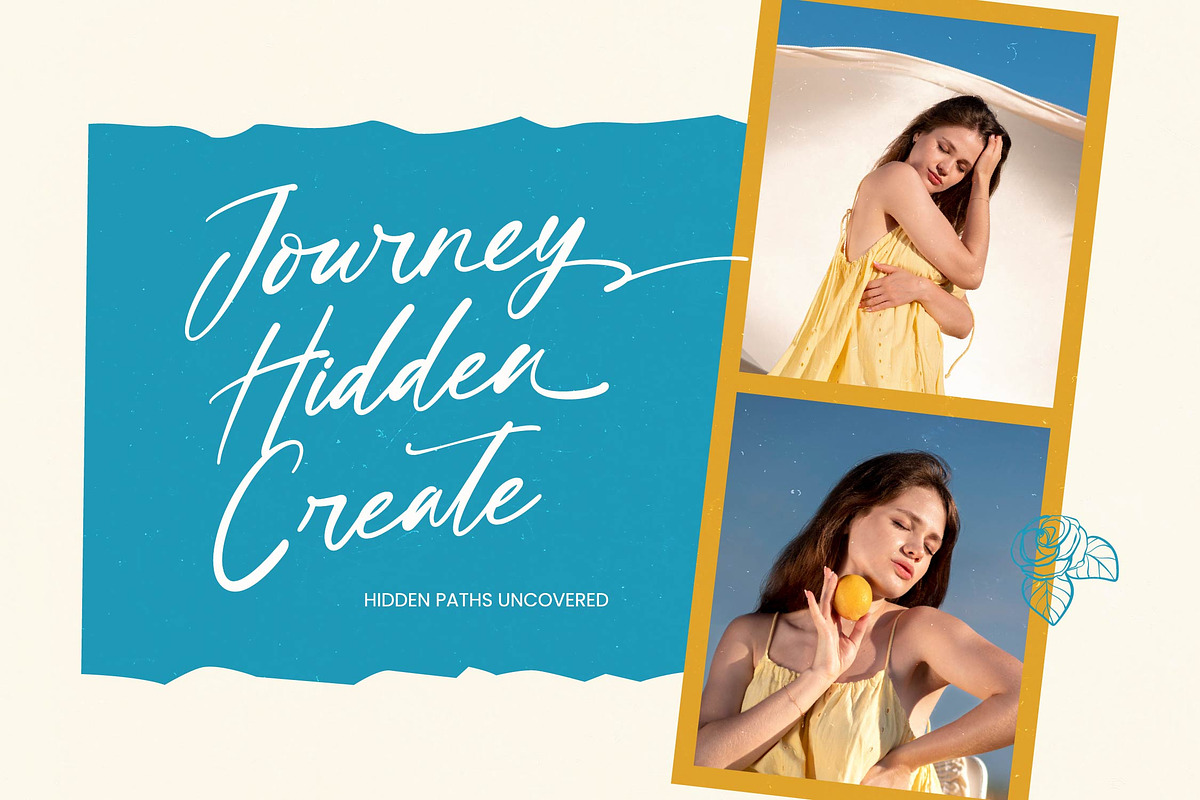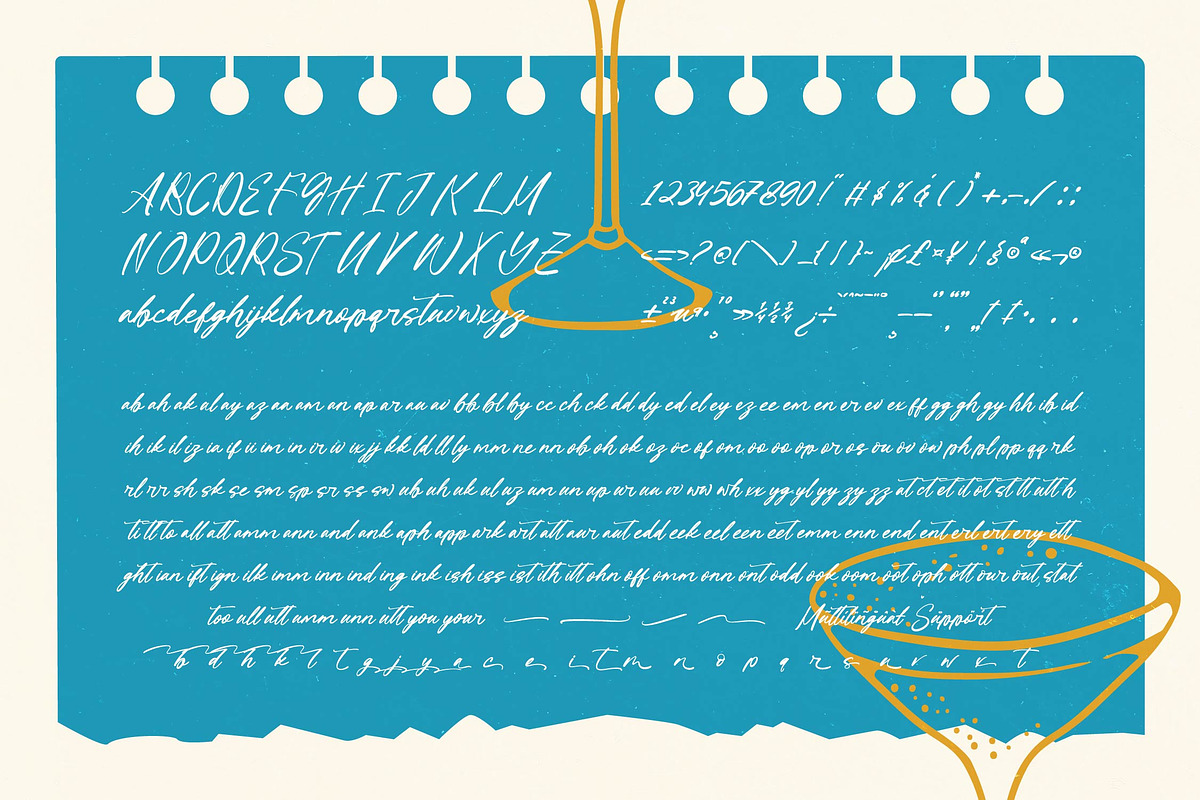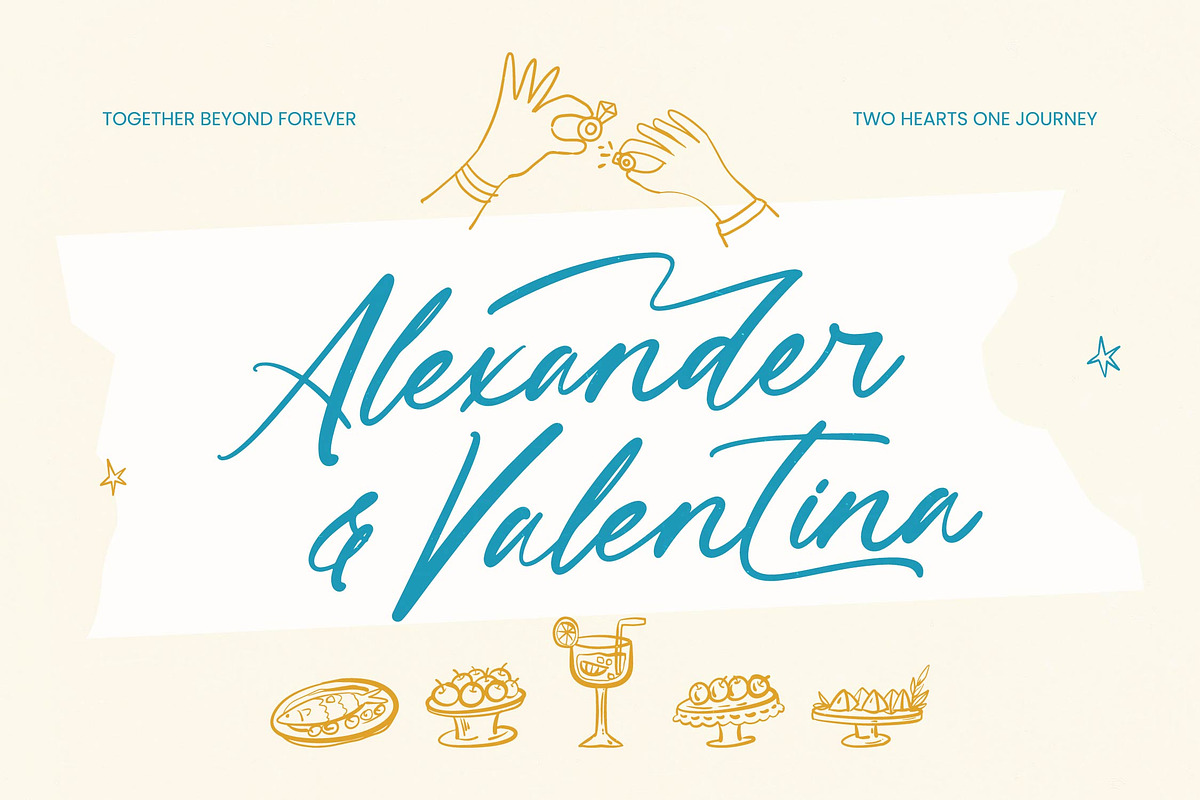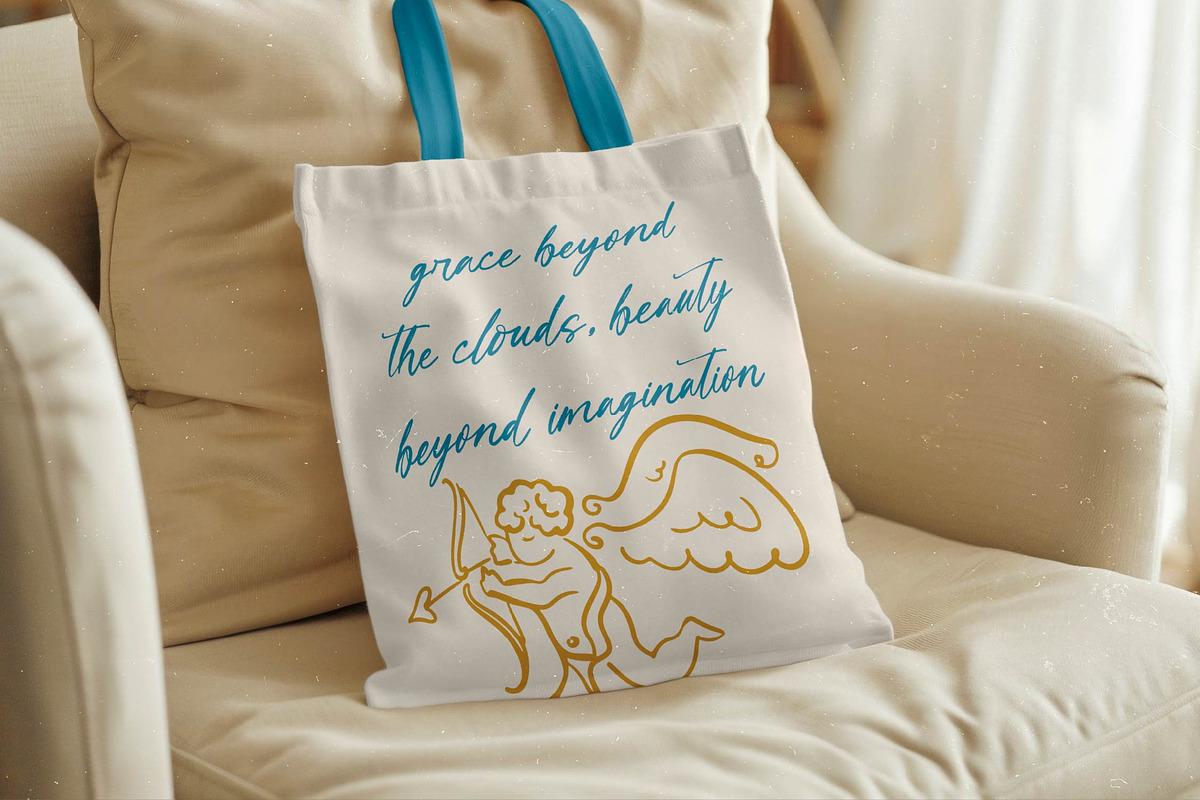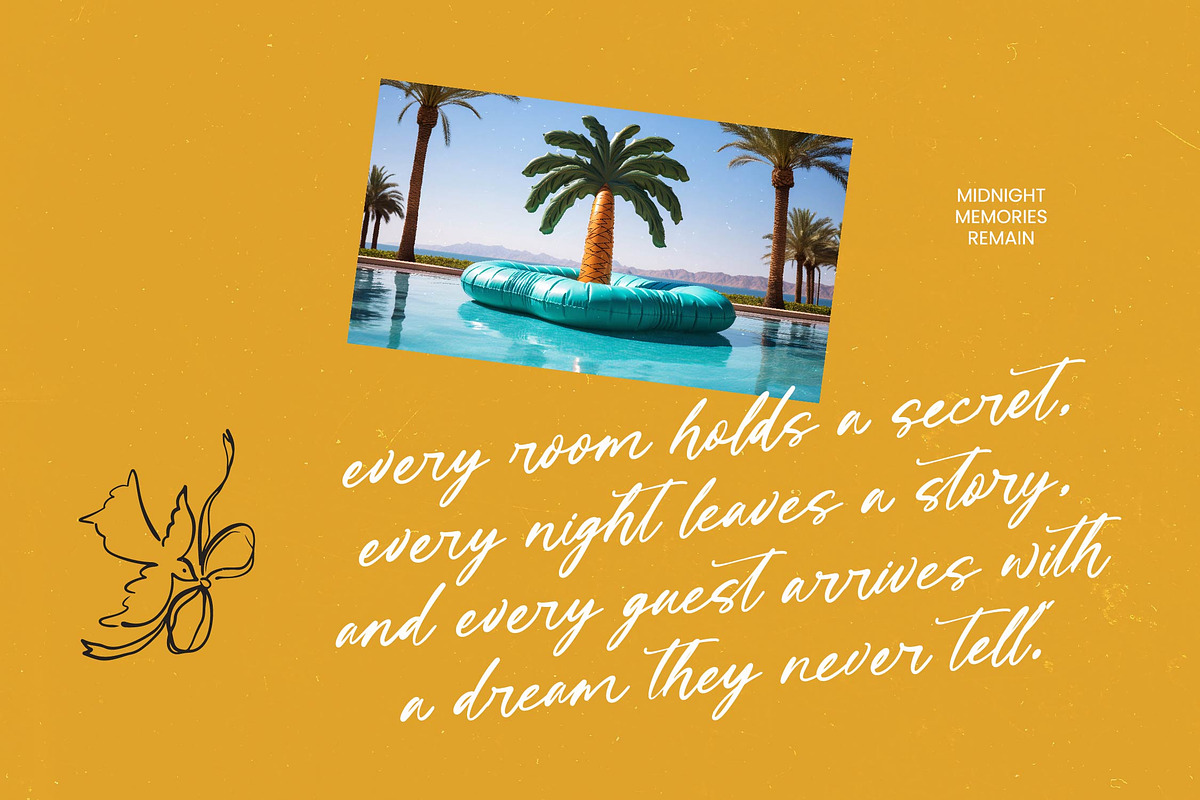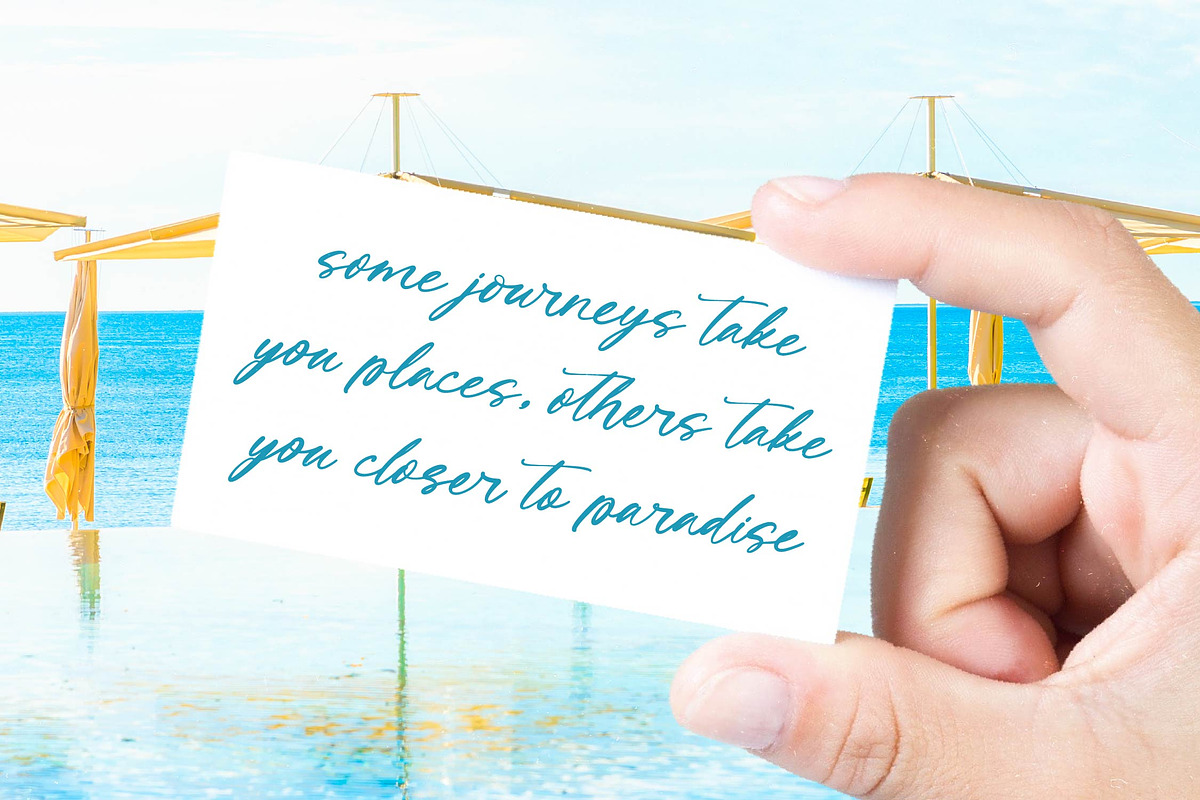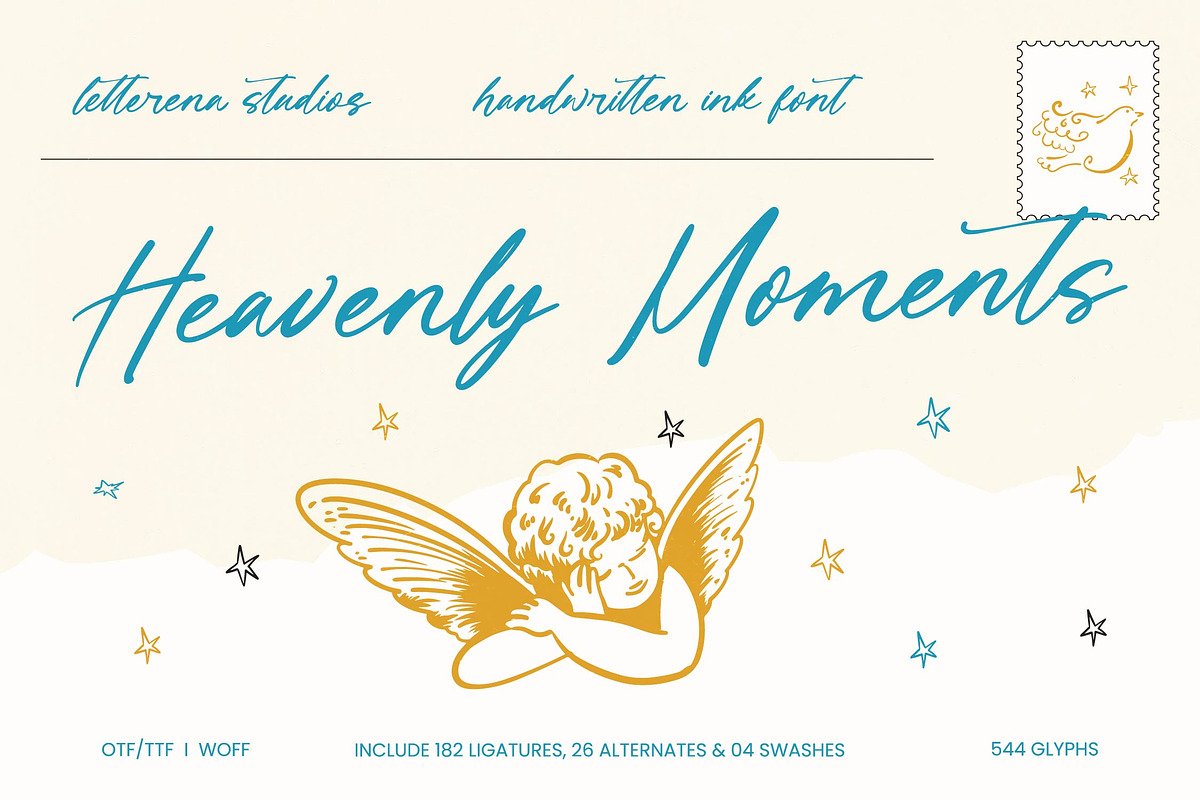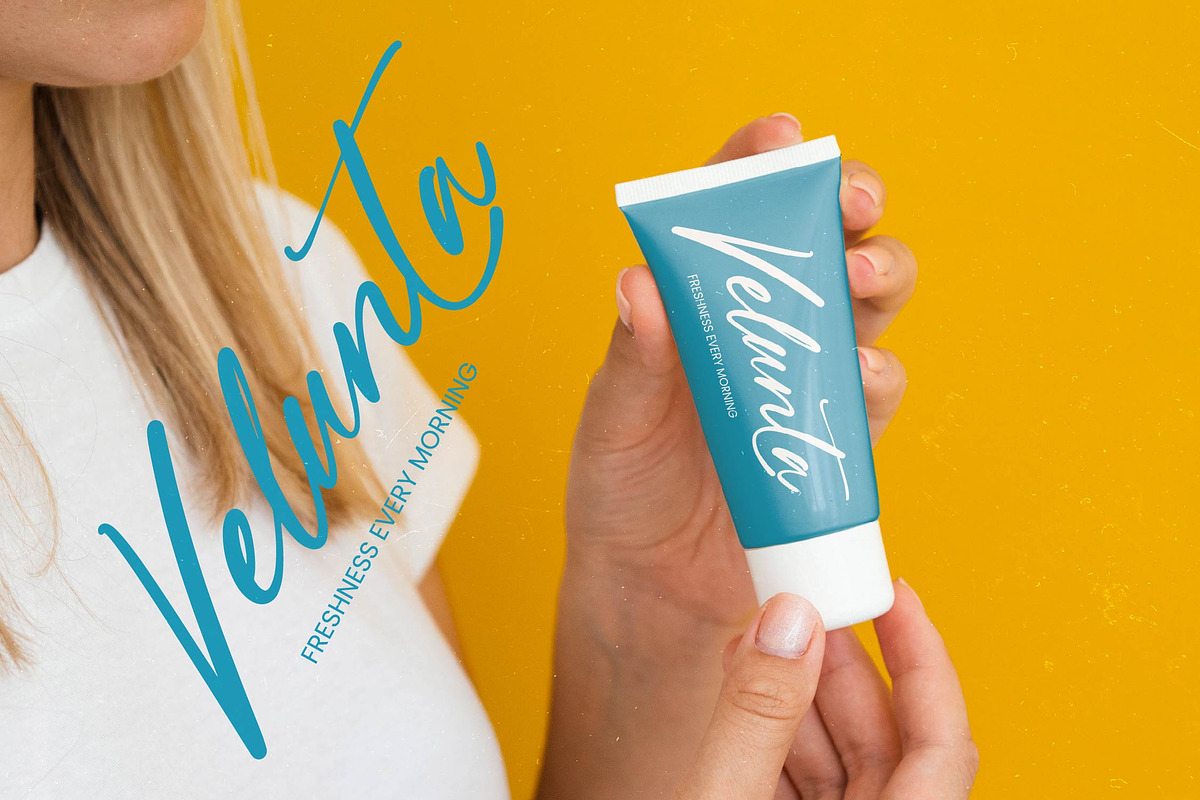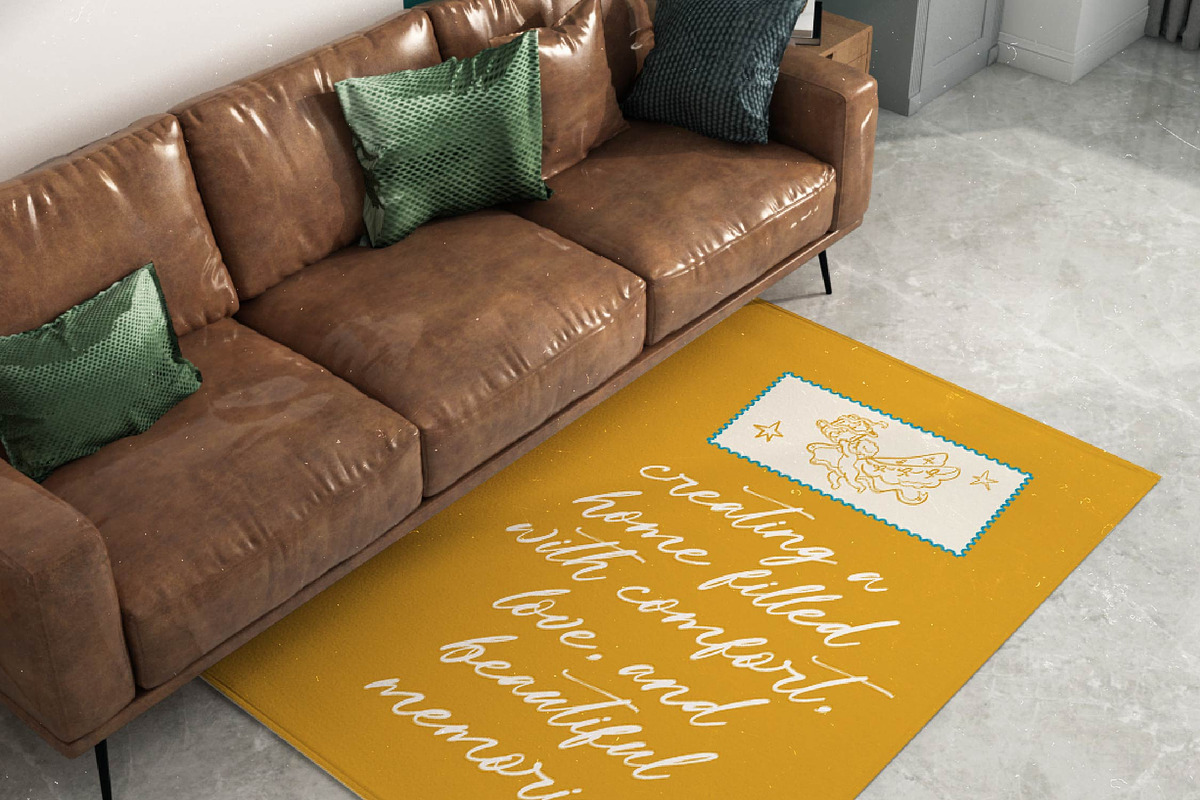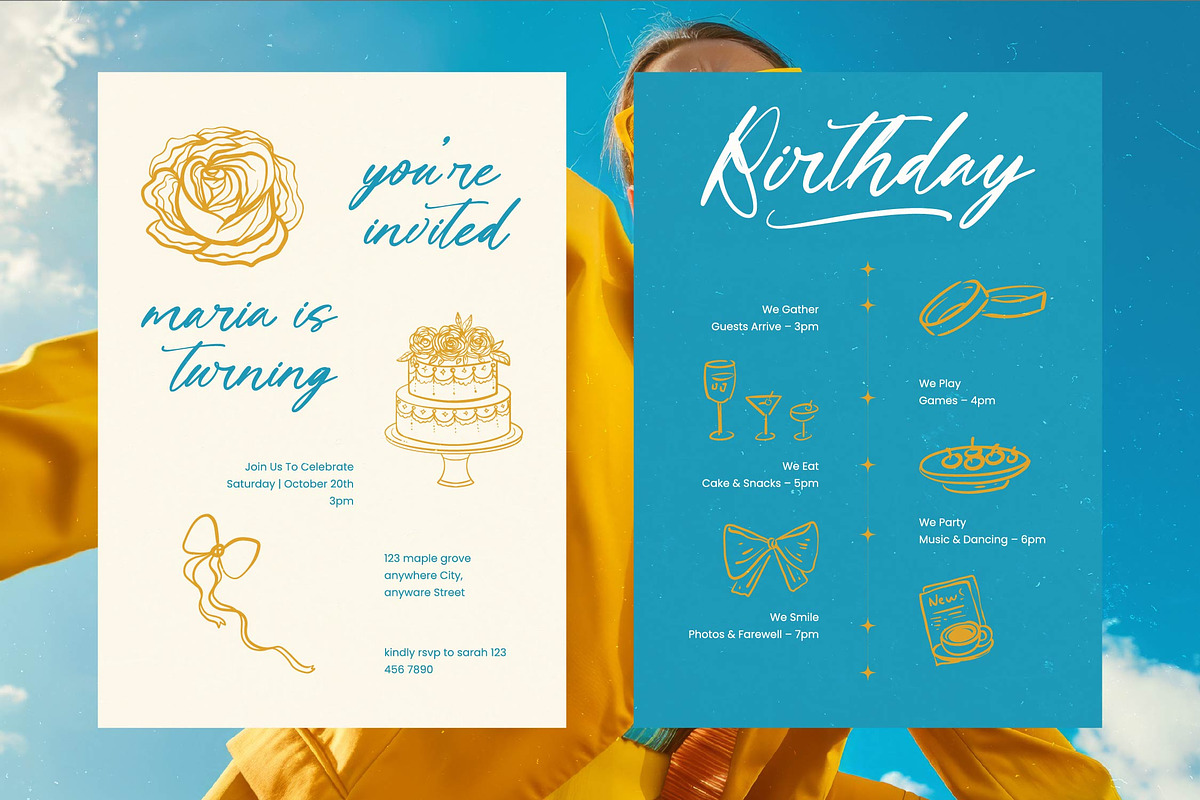
Heavenly Moments Handwritten Ink
Heavenly Moments - Handwritten Ink Font , Elevate your creative vision with a touch of authentic artistry. The Heavenly Moments - Handwritten Ink Font captures the raw elegance of natural penmanship, offering an organic flow that brings warmth and character to every design. Its handwritten ink aesthetic is designed to resonate with audiences seeking a personal and premium feel, making it a standout choice for those who value distinctiveness and high-end style.
Precision meets personality through a comprehensive suite of professional features. With an impressive library of 544 glyphs and 182 handcrafted ligatures, the Heavenly Moments - Handwritten Ink Font provides unparalleled customization options for bespoke typography. These technical assets allow designers to mimic the natural variations of real ink on paper, ensuring that every headline and logo feels unique and sophisticated.
Global accessibility is a core pillar of this typeface's versatile utility. With its extensive multilingual support, Heavenly Moments - Handwritten Ink Font adapts seamlessly across global markets, making it incredibly versatile for international projects. This ensures that your brand message remains consistent and visually compelling regardless of the geographic location or linguistic requirements of your target audience, providing a truly inclusive design solution.
Unlock endless possibilities for high-end creative work across various industries. This typeface is perfect for luxury branding, wedding invitations, and editorial design where a refined, human touch is required. Whether applied to premium packaging, signage, or social media graphics, the Heavenly Moments - Handwritten Ink Font serves as the ultimate tool for designers aiming to convey exclusivity and grace in a competitive marketplace.